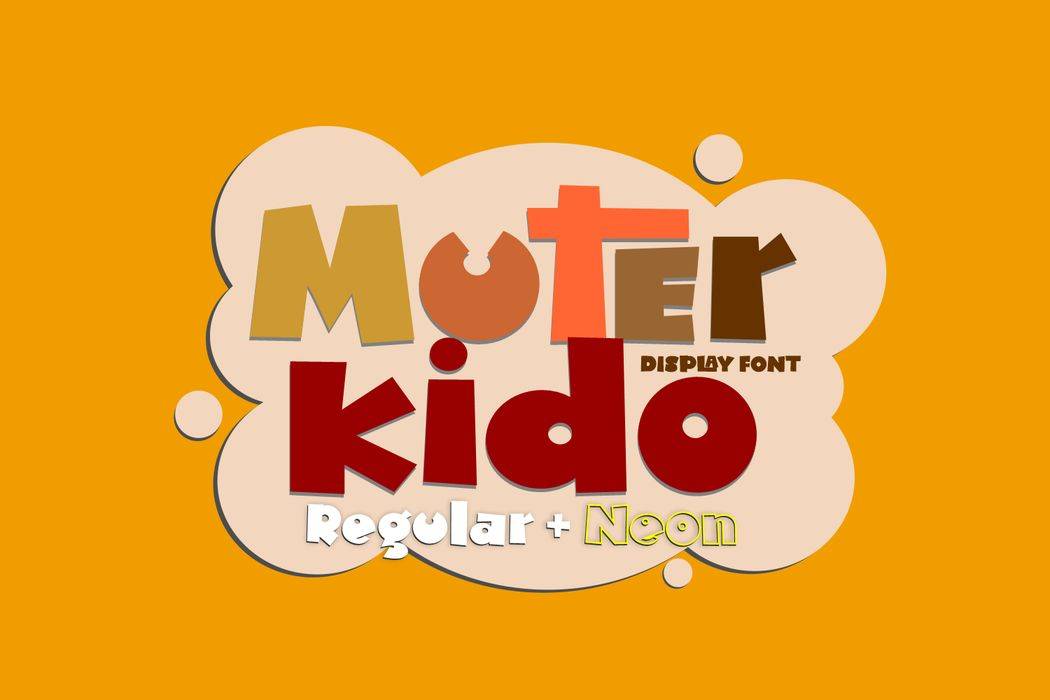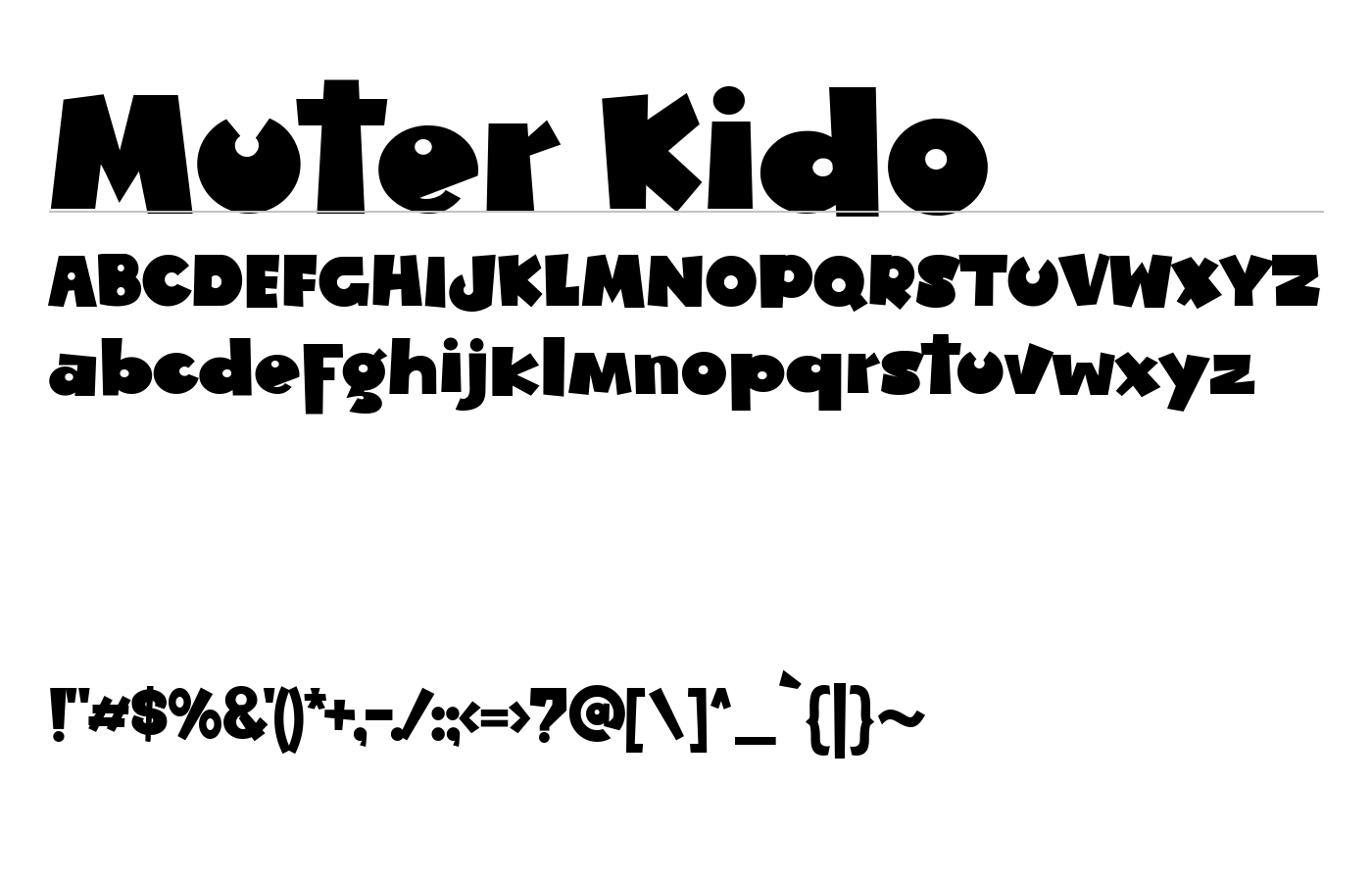
Muter Kido is a bold, playful sans serif font featuring chunky letterforms with irregular, slightly tilted strokes that give it a quirky, fun personality. Its heavy weight and tight spacing make it eye-catching and ideal for energetic, informal designs aimed at children or creative branding. This font works best in headlines, logos, and posters where a lively and approachable tone is desired.
Muter Kido Font
About Muter Kido Font
| Font family | Muter Kido Font |
| Designer | joko setiono |